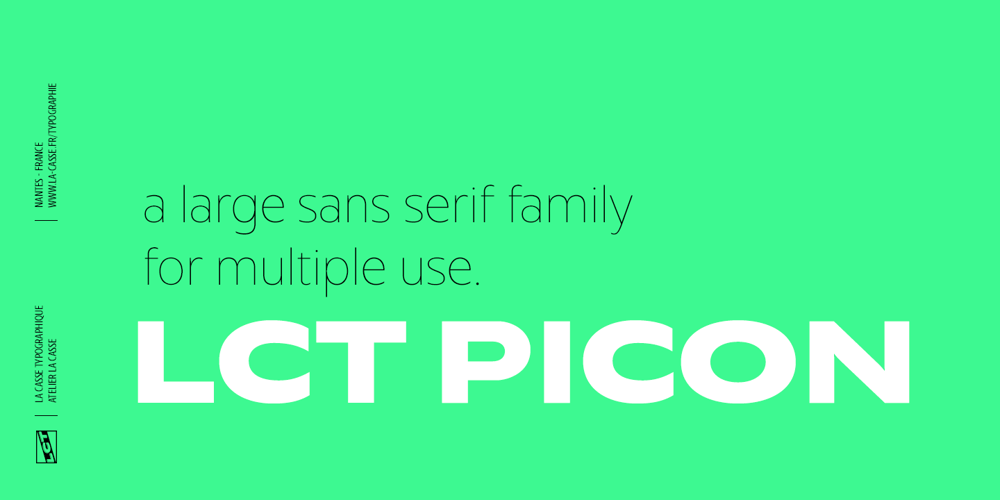
LCT Picon
LCT Picon font
LCT Picon Font Family was designed by Quentin J. Stavinsky and published by LCT. LCT Picon contains 27 styles and family package options. Big modern sans-serif family, for multiple use.